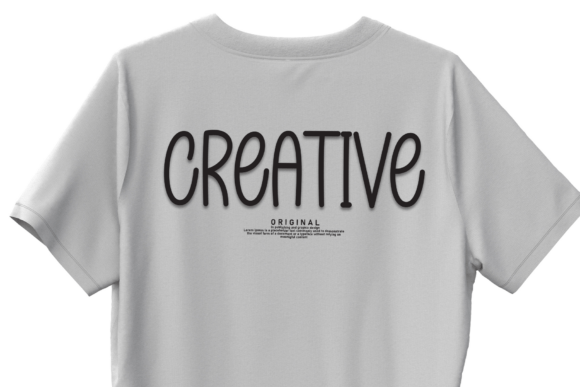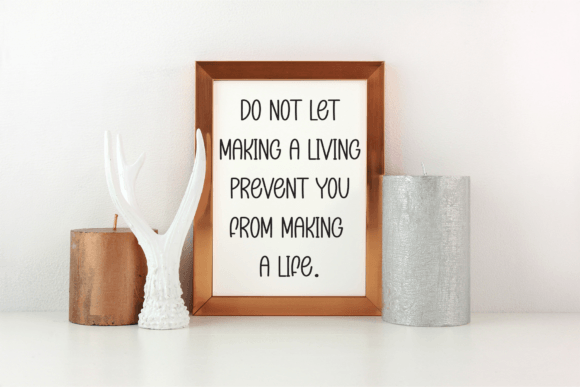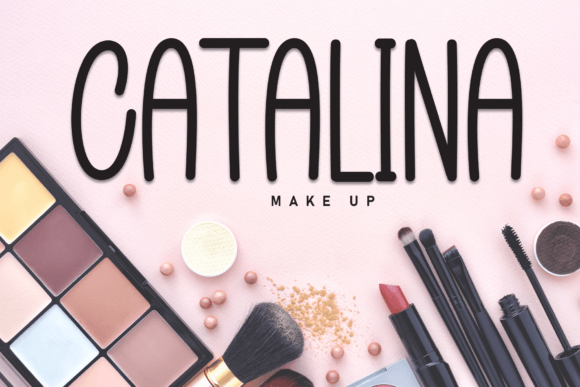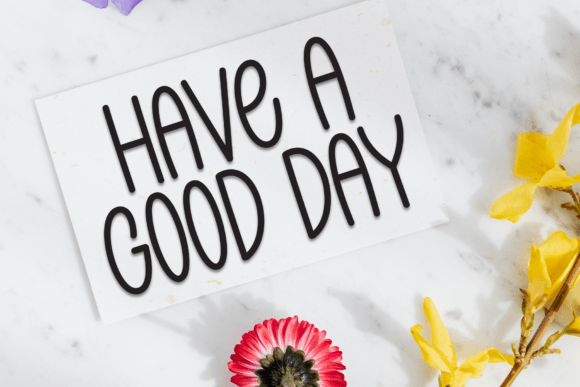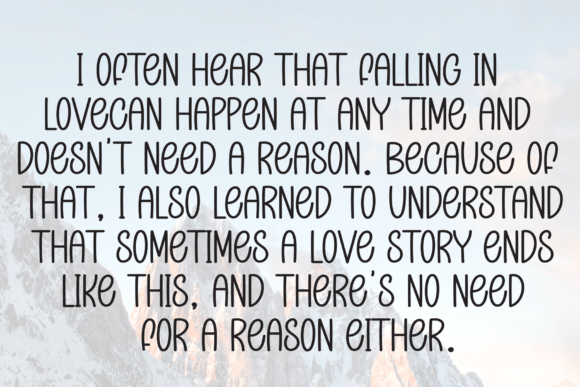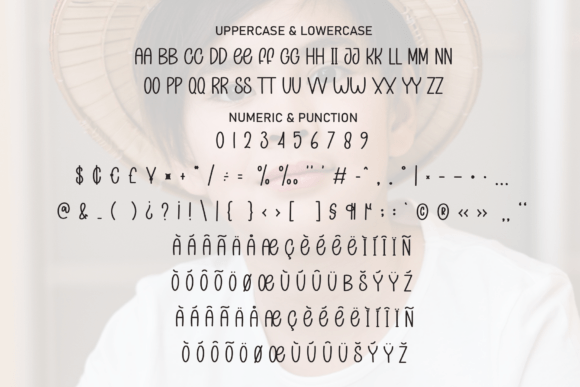
Introduction to Simple Boy Font
Remember that moment when you stumbled upon the perfect font for your project, and everything just clicked? For designers, that feeling is priceless, and it’s exactly what the Simple Boy Font aims to evoke. This delightful, handwritten display font is a game-changer for those seeking a touch of whimsy and charm in their designs.
As a valuable addition to any design resource, Simple Boy Font is perfect for infusing a dash of fun into your creative projects. Whether you’re crafting wedding invitations, greeting cards, or any other visual masterpiece, this font is sure to bring a smile to your face and your audience’s. With its high-quality, transparent background, you can rest assured that your designs will look stunning.
Key Features of Simple Boy Font
- High-quality design resource ideal for creative projects, offering a unique and playful touch.
- Comes with a transparent background, allowing for easy integration into various design elements.
- Unique characteristics include its childlike and innocent feel, making it perfect for children’s products, educational materials, and other related creative projects.
Honest Review: Simple Boy Font
- What works well: ✨ The Simple Boy Font has a charming, hand-drawn feel that instantly adds a touch of personality to any design. It’s perfect for projects that need a more casual, approachable vibe.
- What works well: ✨ The font is available in a range of weights, from light to bold, giving you plenty of options to suit your design needs.
However, I did encounter a few limitations while using the Simple Boy Font. ⚠️ The font is not suitable for projects that require a high level of precision or a transparent background, as the letters can be a bit pixelated and the background may not render properly.
Overall, I’m impressed with the Simple Boy Font. While it may not be the most versatile font out there, it’s a great choice for creative projects that need a fun, laid-back feel. With a bit of careful planning, you can create some amazing designs using this font.
Simple Boy Font is perfect for a variety of creative projects, including children’s book illustrations, educational materials, and advertising designs. Its high-quality design and transparent background make it a valuable design resource for free download.